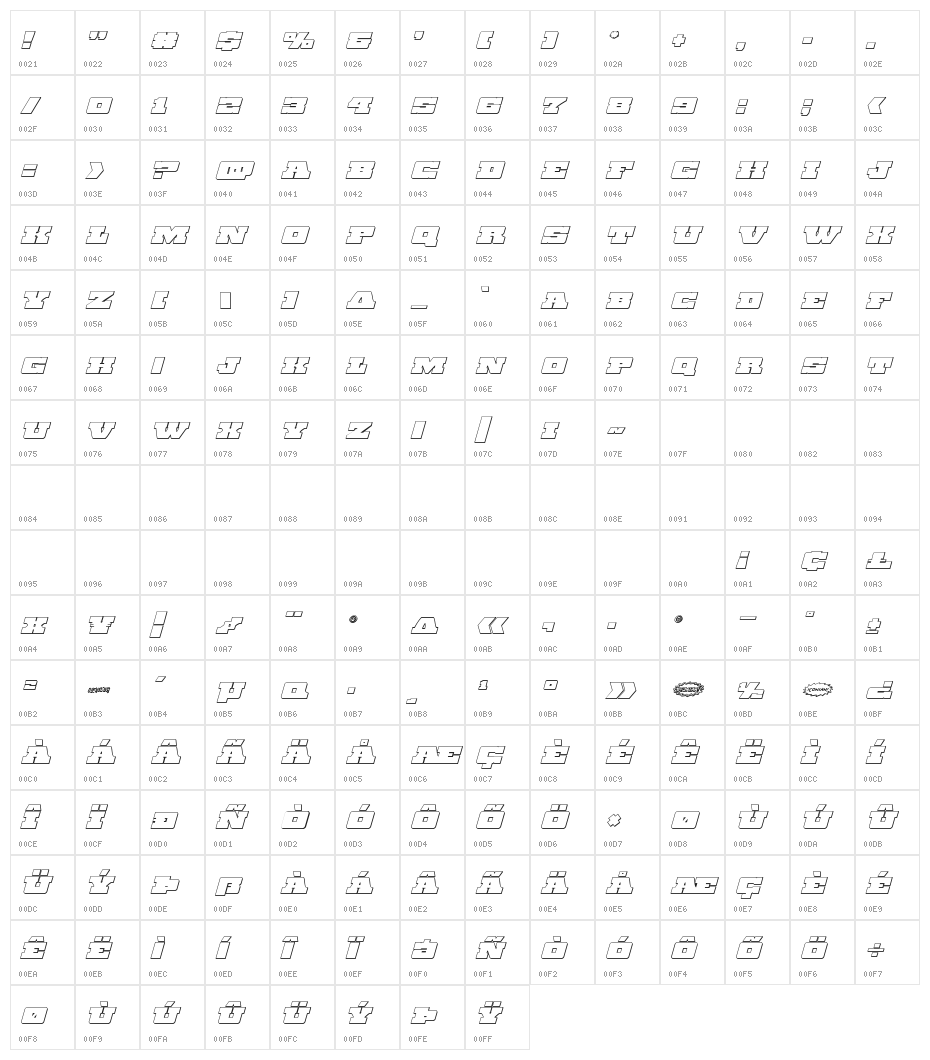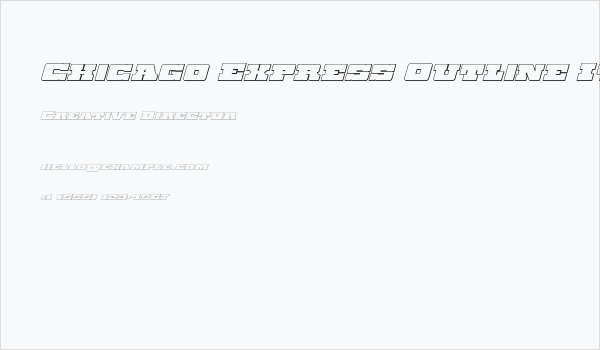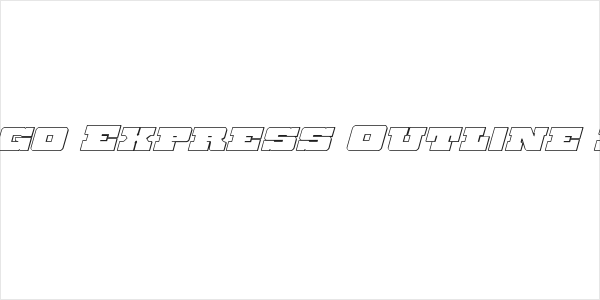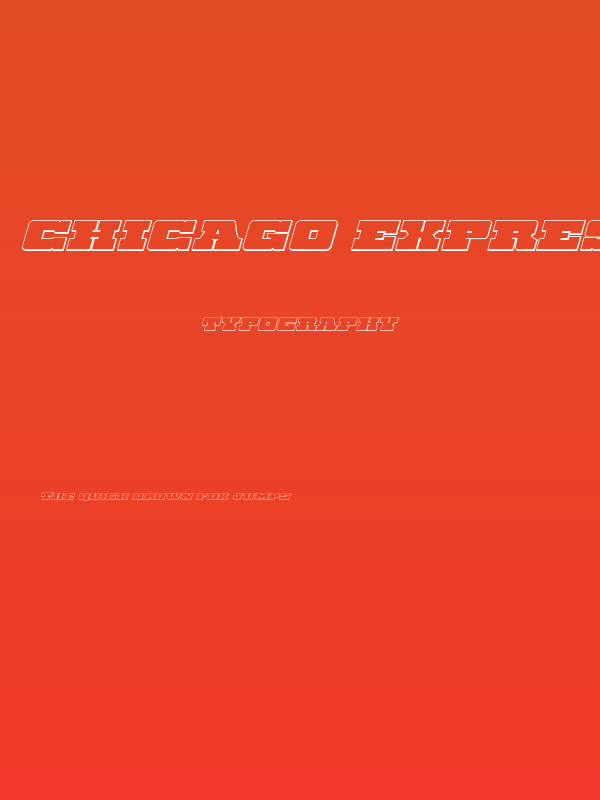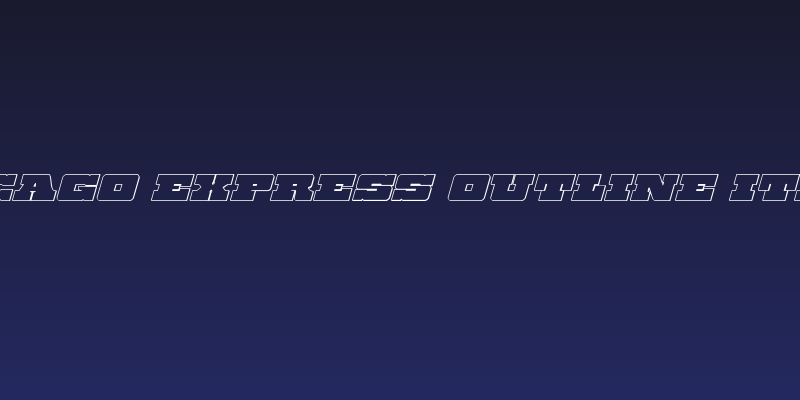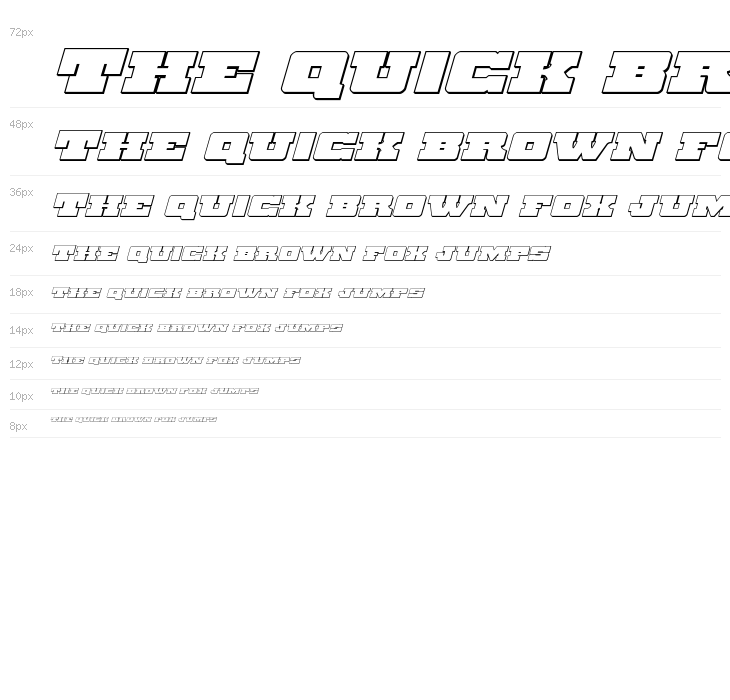
Chicago Express Outline Italic Font
Chicago Express Outline Italic Description
This font features a bold, outlined style with a distinct italic slant, giving it a dynamic and energetic appearance. The characters are uppercase with a strong geometric structure, characterized by sharp angles and straight lines. The outline effect adds a layer of depth, making the text stand out prominently. The font's design is reminiscent of sports or action-themed typography, suitable for creating impactful headlines or titles. Its boldness and unique style make it ideal for projects that require a strong visual presence.
| Proposed Projects | Ideal for sports branding, action movie posters, dynamic event flyers, and bold headlines. |